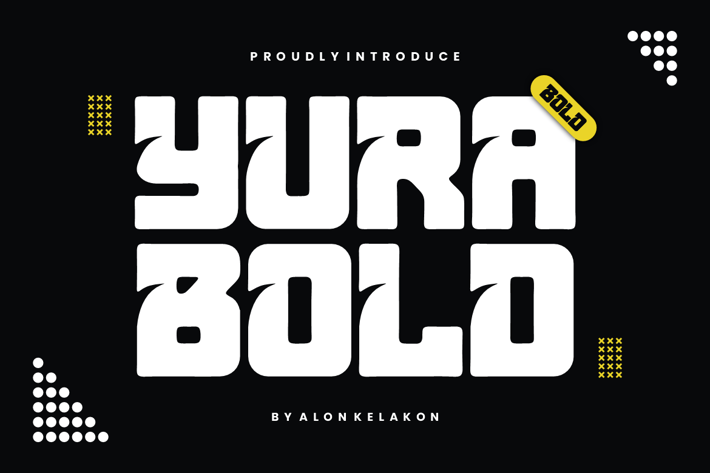
Yurabold - Bold Font
alonkelakon
Yurabold Bold Font is unique . Ready to use for your design like labeling, movie sceen, poster, movie title, gigs, album covers, logos, and much more.